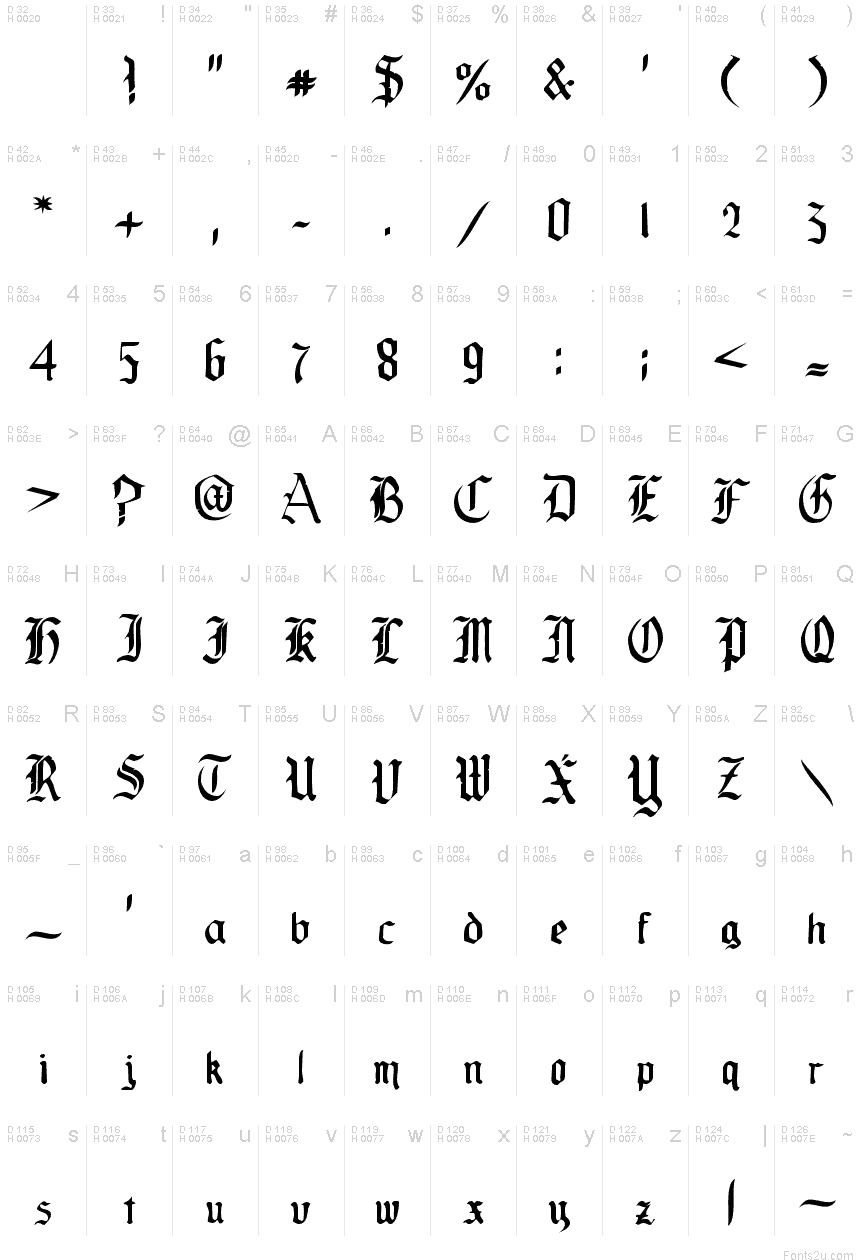
Olde Crilt by Full Time Artists is a free medieval blackletter font with an especially sharp, dark, theatrical silhouette. Its broad capitals combine sweeping curves with blade-like points, and the narrower letters lock tightly into dense ranks of dark vertical strokes. Fine hairlines and abrupt wedges give the lettering a precise cut-paper crispness rather than a weathered manuscript texture.
It fits both heavy-metal merchandise and historical event posters. The same aggressive ornament and old-world structure can shape beer packaging and fantasy game graphics, aimed at gothic music fans, medieval enthusiasts, and dark-fantasy audiences who respond to lettering with a strongly theatrical edge.